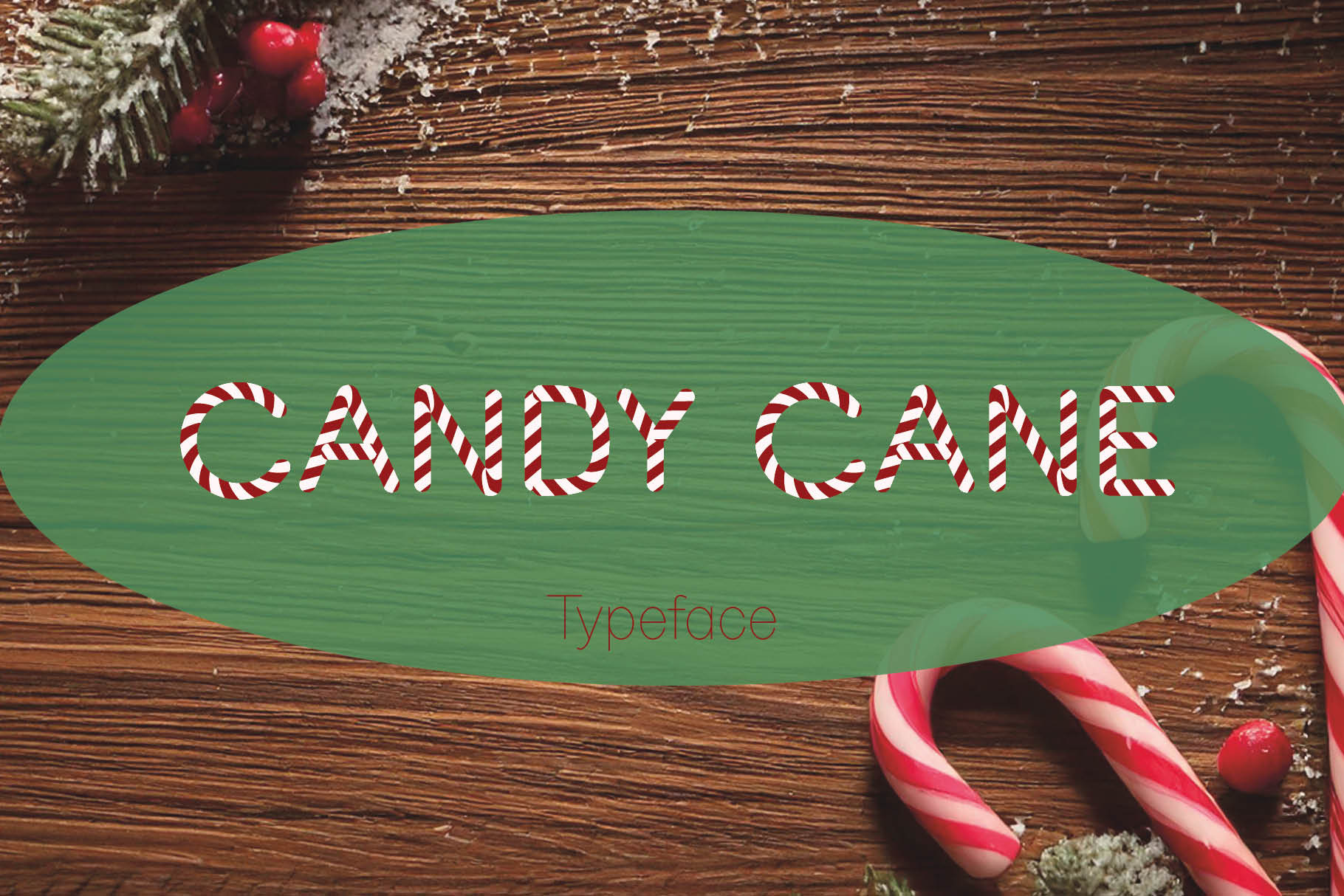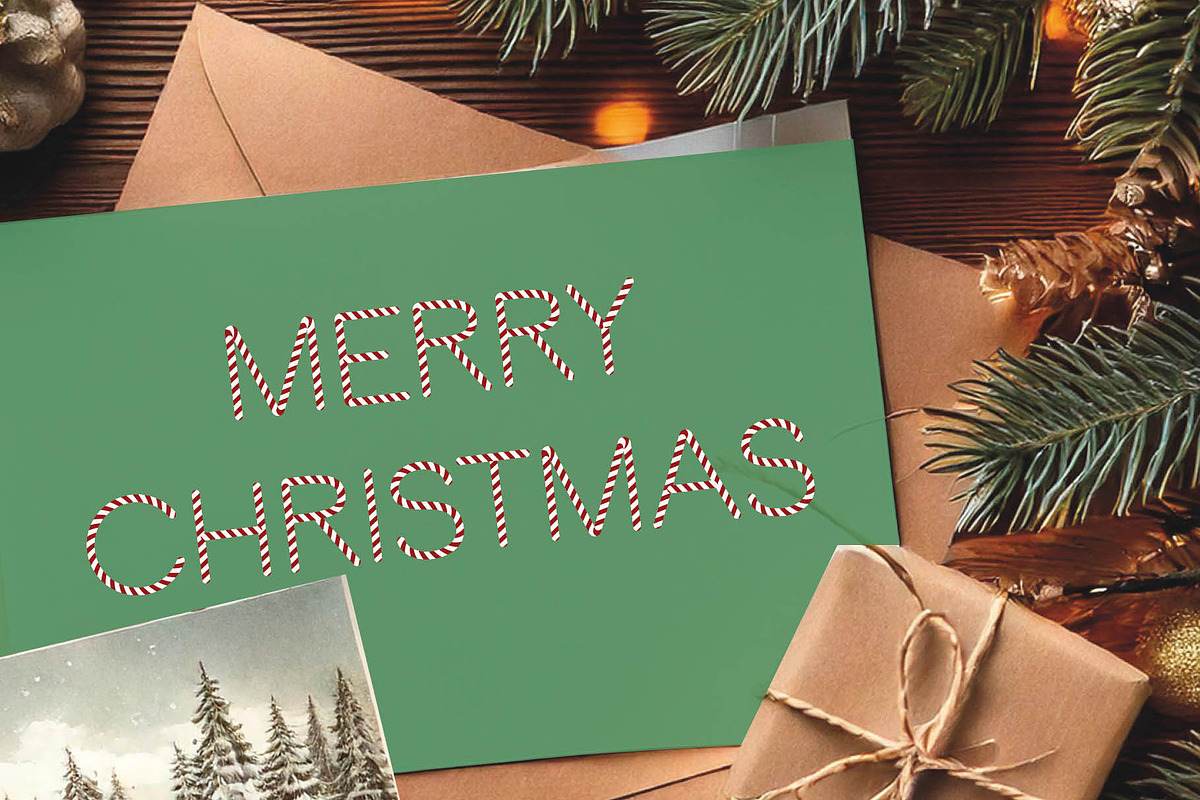
Winter Christmas Font Candy Cane
Unwrap the sweetness of the season with this Candy Cane Font, inspired by the classic holiday treat! This delightful typeface is perfect for adding a playful and festive vibe to all your Christmas-themed designs. Whether you're creating holiday cards, party invitations, or seasonal marketing materials, this font will sprinkle your projects with a touch of holiday magic. It combines the nostalgia of traditional candy cane stripes with a modern twist. Its bold, curvy design features vibrant stripes and seamless flow, making it the ideal choice for spreading holiday cheer.
It's perfect for:
- Holiday Cards & Invitations: Send joyful wishes with designs that stand out
- Social Media Graphics: Add a playful holiday twist to your posts and stories
- Gift Tags & Wrapping: Elevate your presents with charming labels and tags
- Party Decorations: Design banners, table cards, and more with festive flair
- Seasonal Branding: Make your holiday campaigns unforgettable